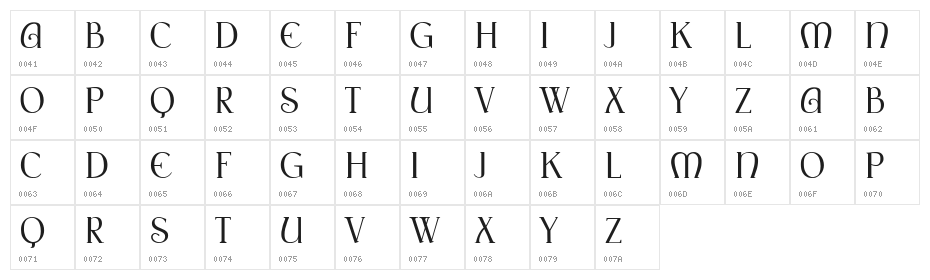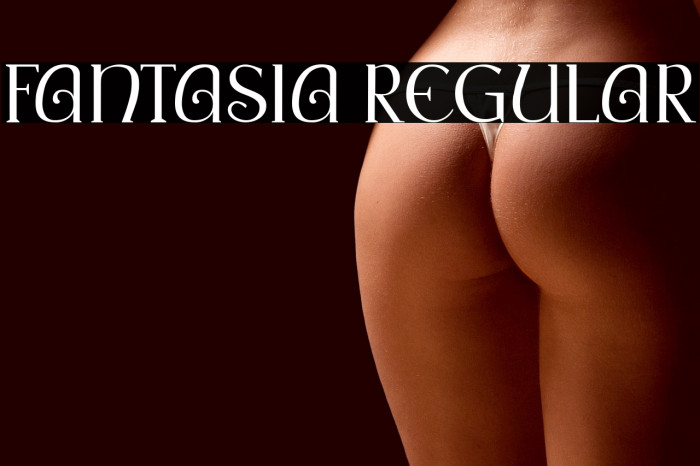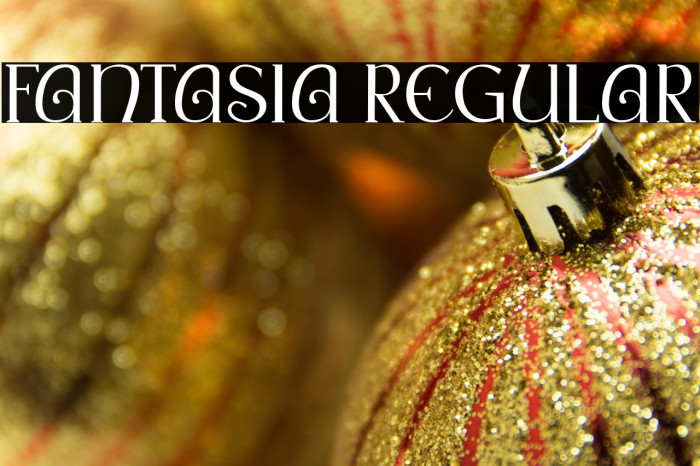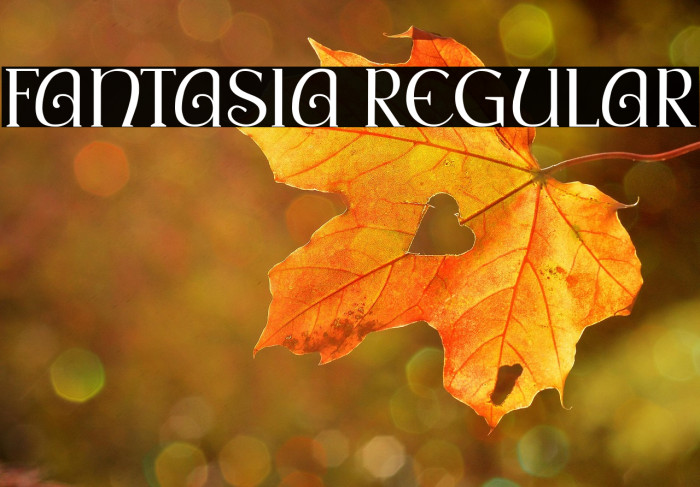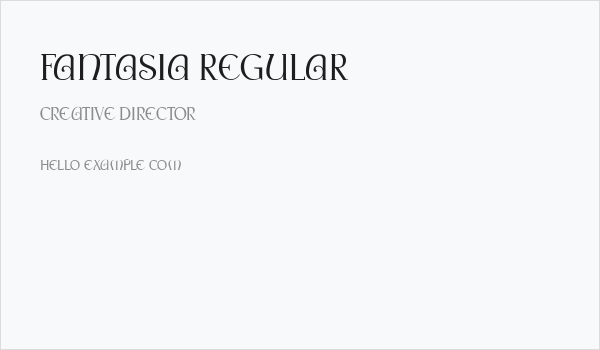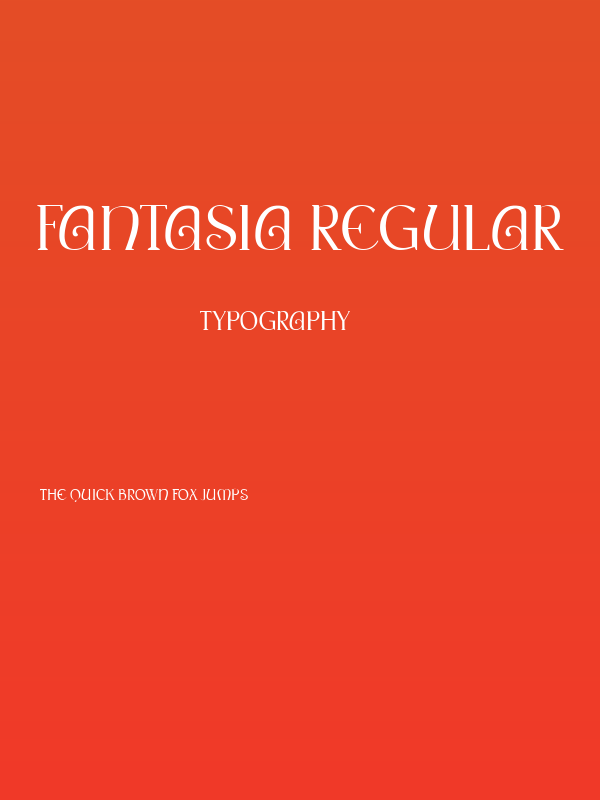
Fantasia Regular Font
Fantasia Regular Description
This font features a unique blend of classic and modern elements, characterized by its elegant curves and sharp edges. The uppercase letters are bold and commanding, with a slight flair that adds a touch of sophistication. The lowercase letters maintain a consistent style, offering a harmonious balance between the two cases. The numerals are clear and distinct, ensuring readability. Special characters are designed with the same attention to detail, seamlessly integrating with the overall aesthetic. This font's distinctive style makes it suitable for a variety of design projects.
| Use Case | Logos, Headlines, Editorial design |
| Proposed Projects | Ideal for branding, editorial design, luxury product packaging, and high-end invitations. |